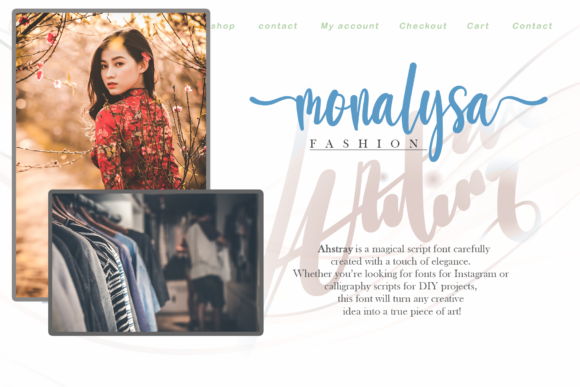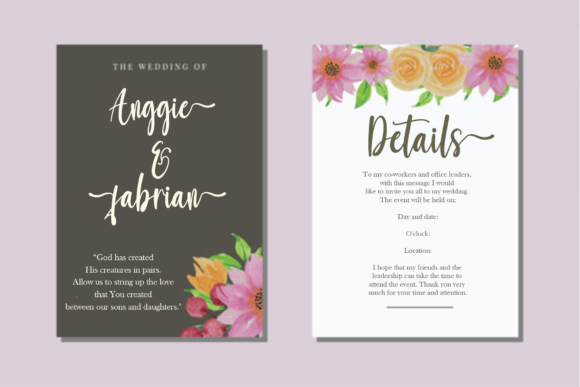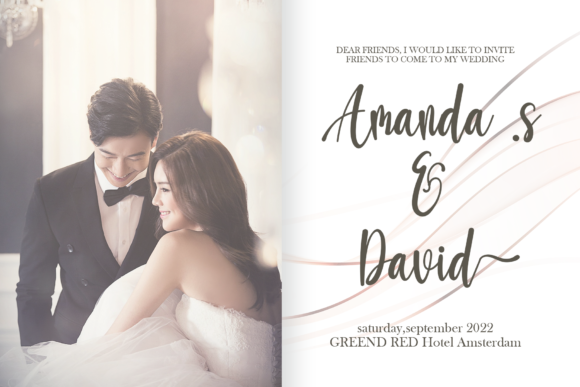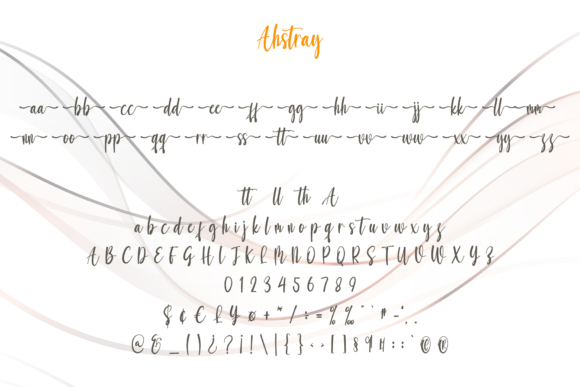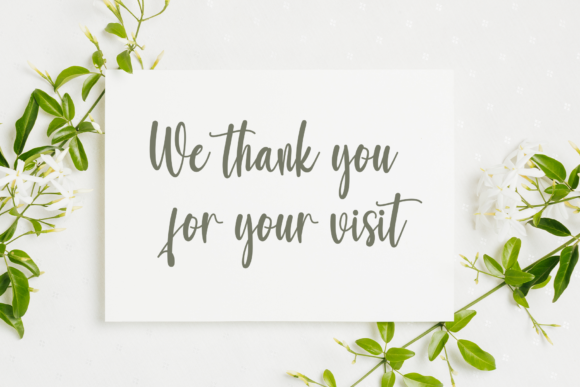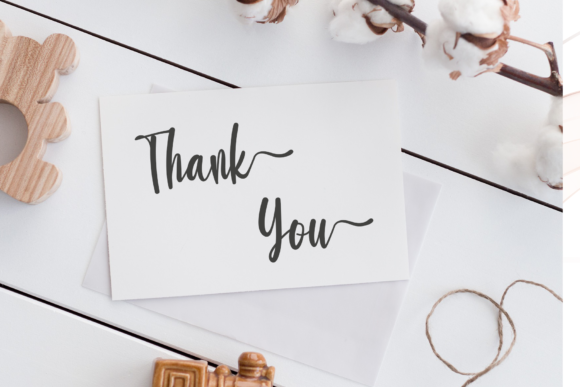
The Perfect Touch of Elegance with Ahstray Font
As I sat at my desk, staring at a blank sheet of paper, I couldn’t help but feel a sense of frustration. I was working on a project that required a delicate touch, something that would convey the beauty and sophistication of the subject matter. That’s when I stumbled upon the Ahstray Font, a script font that has since become my go-to choice for any project that demands refinement and elegance.
The Ahstray Font is more than just a font – it’s an extension of your creative vision. With its stylish alternates and ligatures, this font allows you to add a touch of sophistication to any project, from wedding invitations to luxury branding. Its PUA encoding also makes it easy to access all glyphs and swashes, giving you the freedom to experiment and create unique designs.
Key Features of Ahstray Font
- Character Set: The font includes a comprehensive character set, covering Latin, Cyrillic, and Greek alphabets, as well as a wide range of punctuation and special characters.
- Unique Characteristics: Ahstray Font features a distinctive, hand-drawn style with subtle imperfections, giving it a unique and human touch.
Design Review: Ahstray Font
I recently had the chance to work with the Ahstray font, and I must say it’s an interesting choice for designers. Here are my thoughts on what works well and what doesn’t.
- The unique, hand-drawn feel of the font is a major plus. It adds a touch of personality to any project.
- The font’s irregularities give it a lot of character, making it perfect for designs that need a bit of whimsy.
- The font is highly legible, even at smaller sizes, which is a must-have for any font.
- The font may not be the best choice for projects that require a high level of professionalism or formality.
- The irregularities that make the font so unique can also make it difficult to read in certain situations, such as at very small sizes or in situations where readability is a top priority.
Overall, I think the Ahstray font is a great choice for designers who want to add a bit of personality to their projects. However, it may not be the best choice for every project. With a little bit of care and attention, this font can be a real showstopper.
Getting the Most Out of Ahstray Font
To get the most out of the Ahstray font, try the following tips:
- Use the font in combination with other fonts to create a unique design.
- Play with color and texture to add depth to your design.
The Ahstray font is commonly used in:
- Brand logos and identity design.
- Typography-based artwork and prints.
- Choose a high-quality paper or digital canvas for the journal.
- Select a mix of quotes that resonate with your audience.
- Use the Ahstray Font to typeset the quotes in a visually appealing way.
- Pair the Ahstray Font with minimalist illustrations or watercolor backgrounds for a soothing effect.
- Use a combination of font sizes and colors to create visual hierarchy and emphasis.
- Add a personal touch by including handwritten notes or doodles.
- Choose a bold, eye-catching background color to contrast with the Ahstray Font.
- Select a variety of phrases or words that highlight the font’s personality.